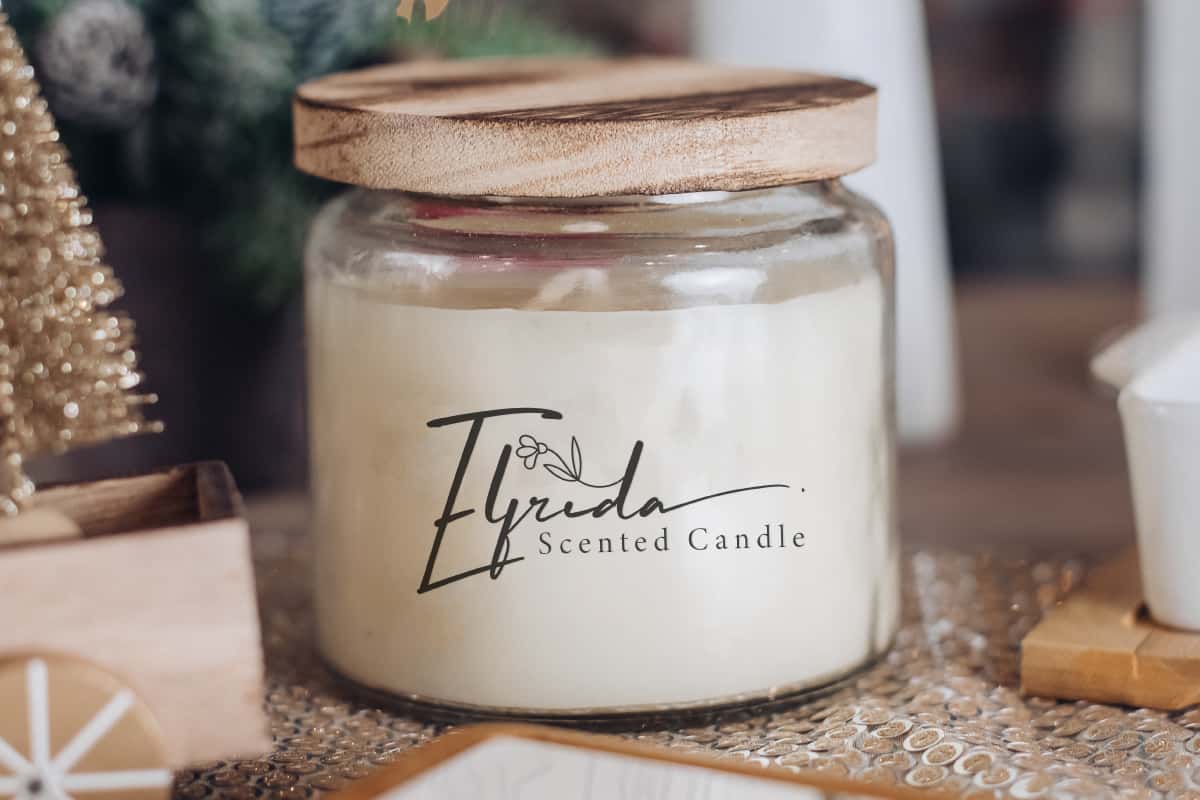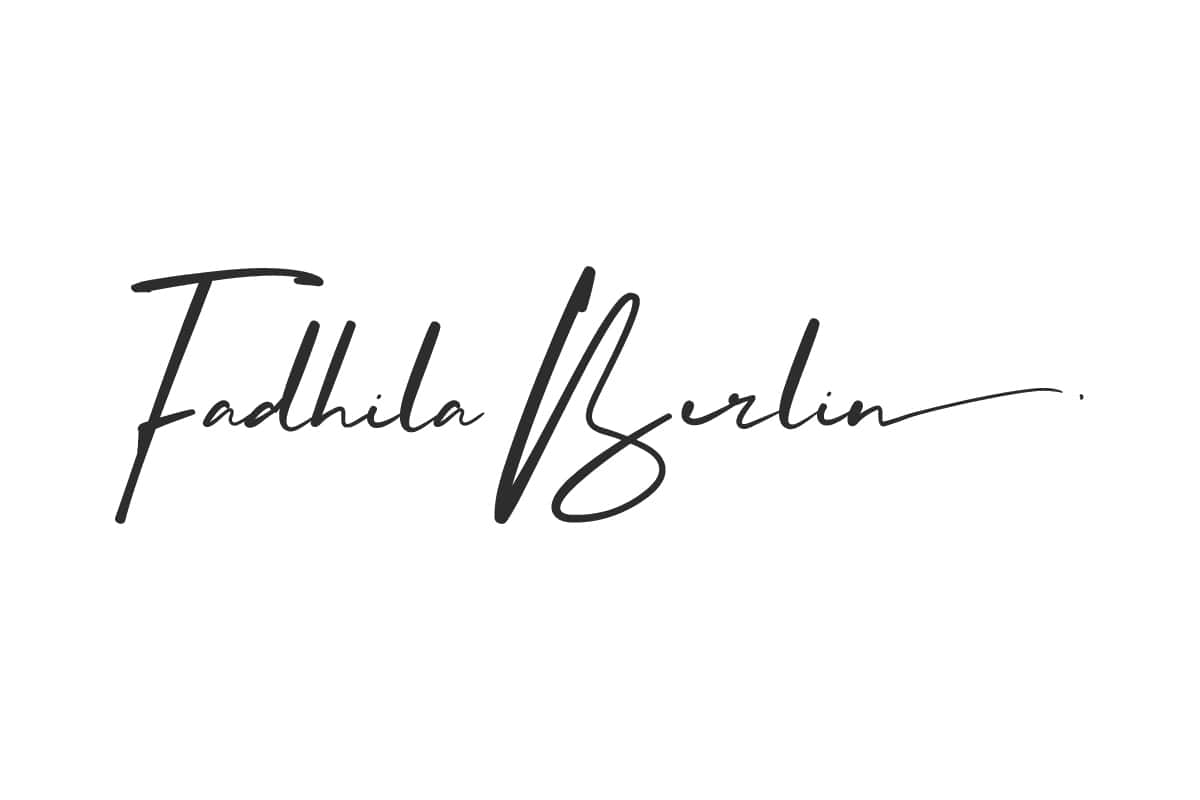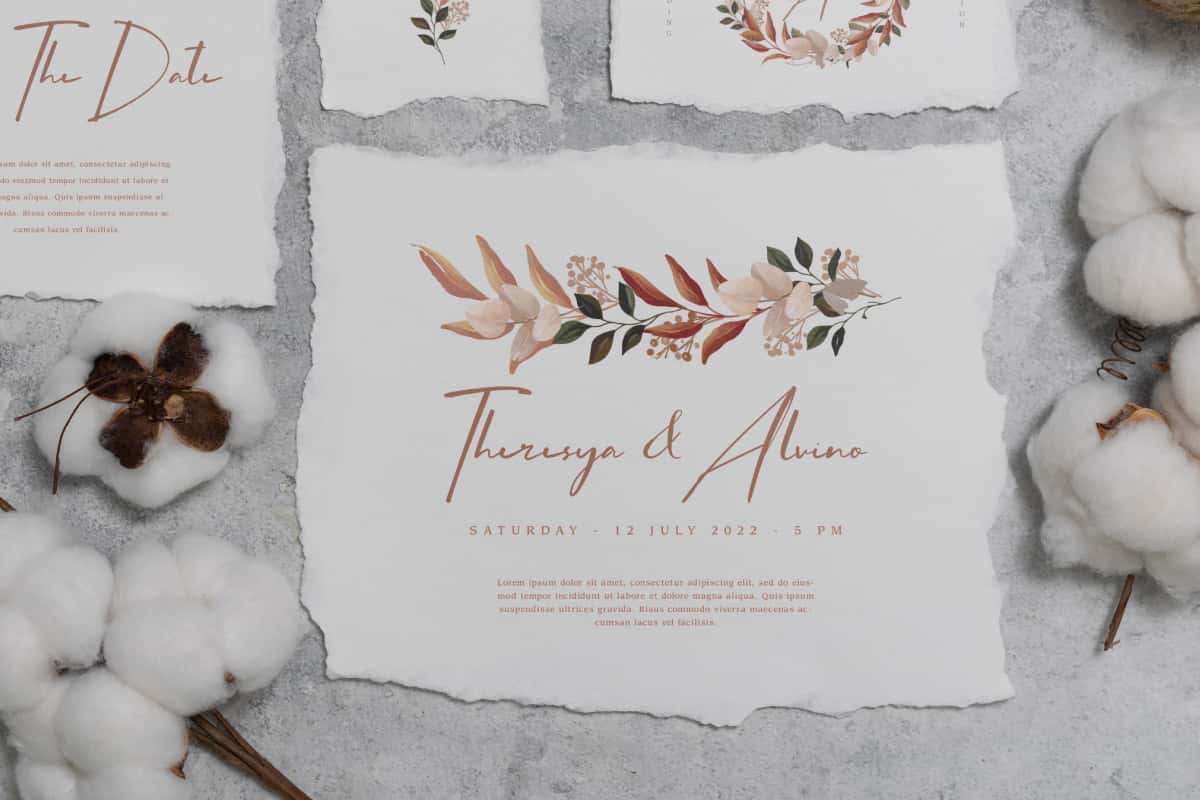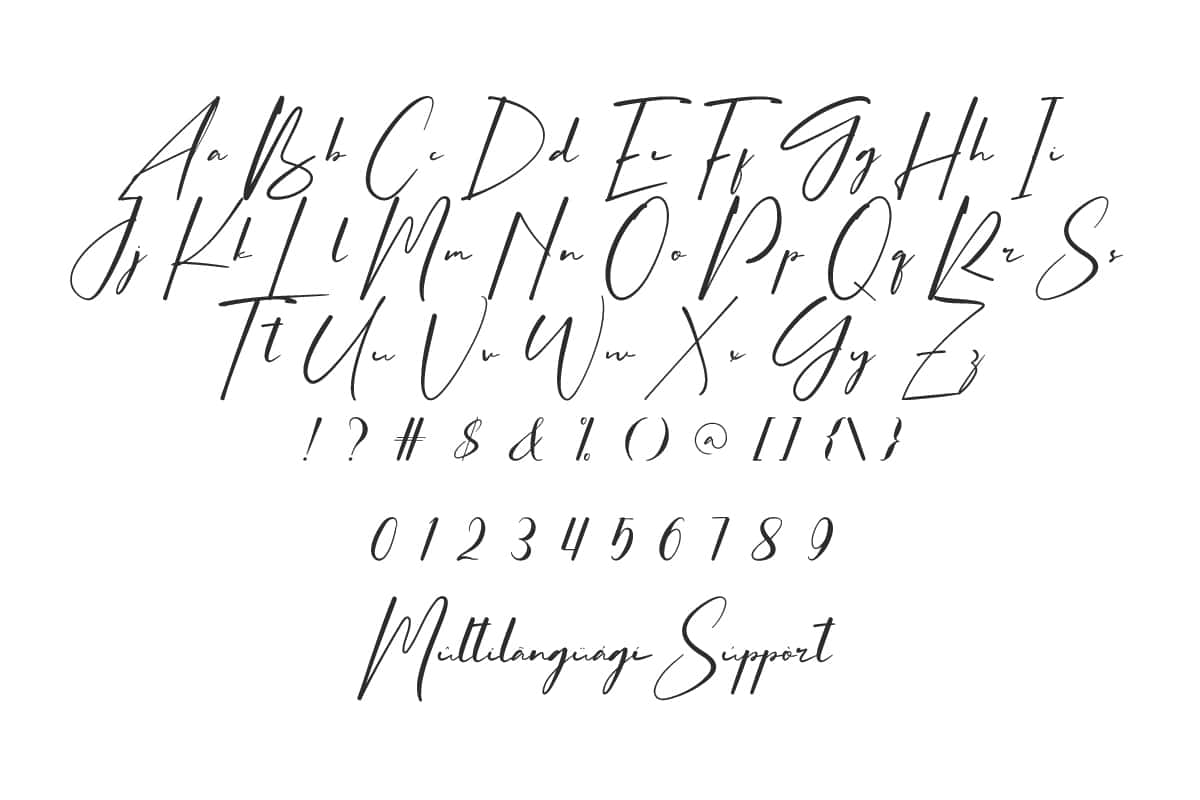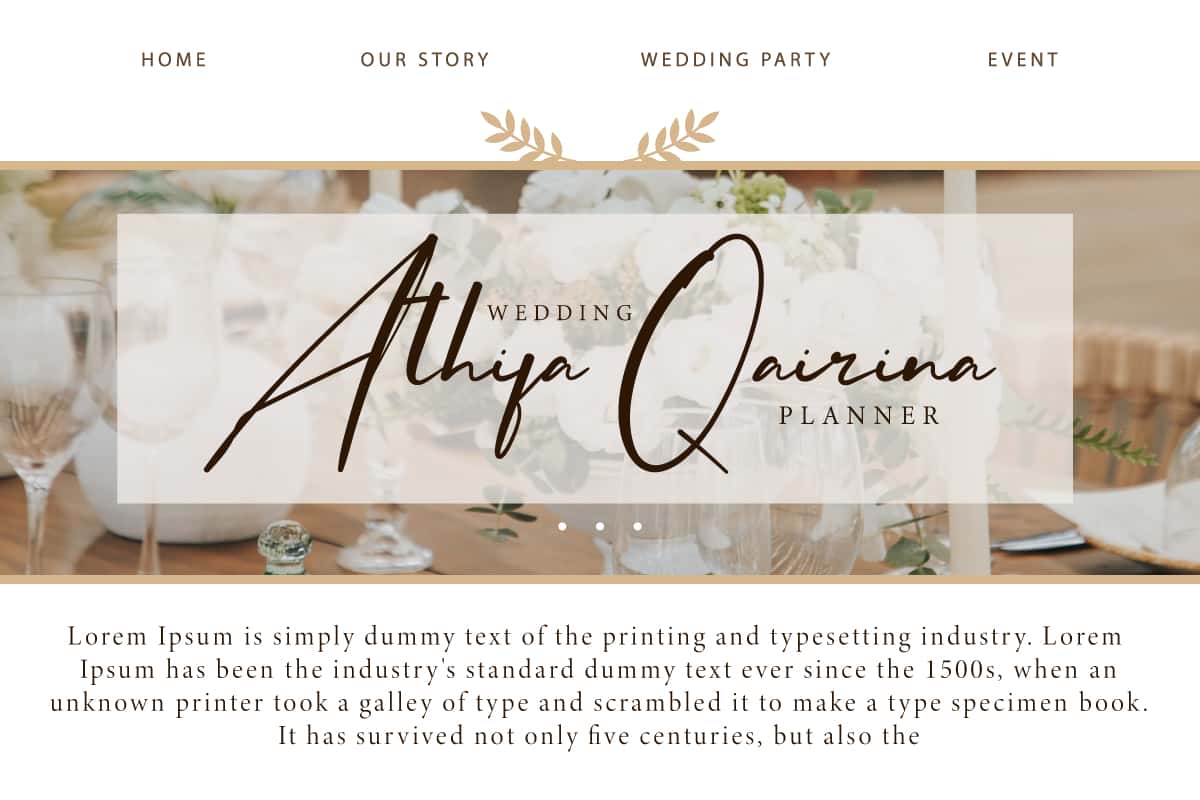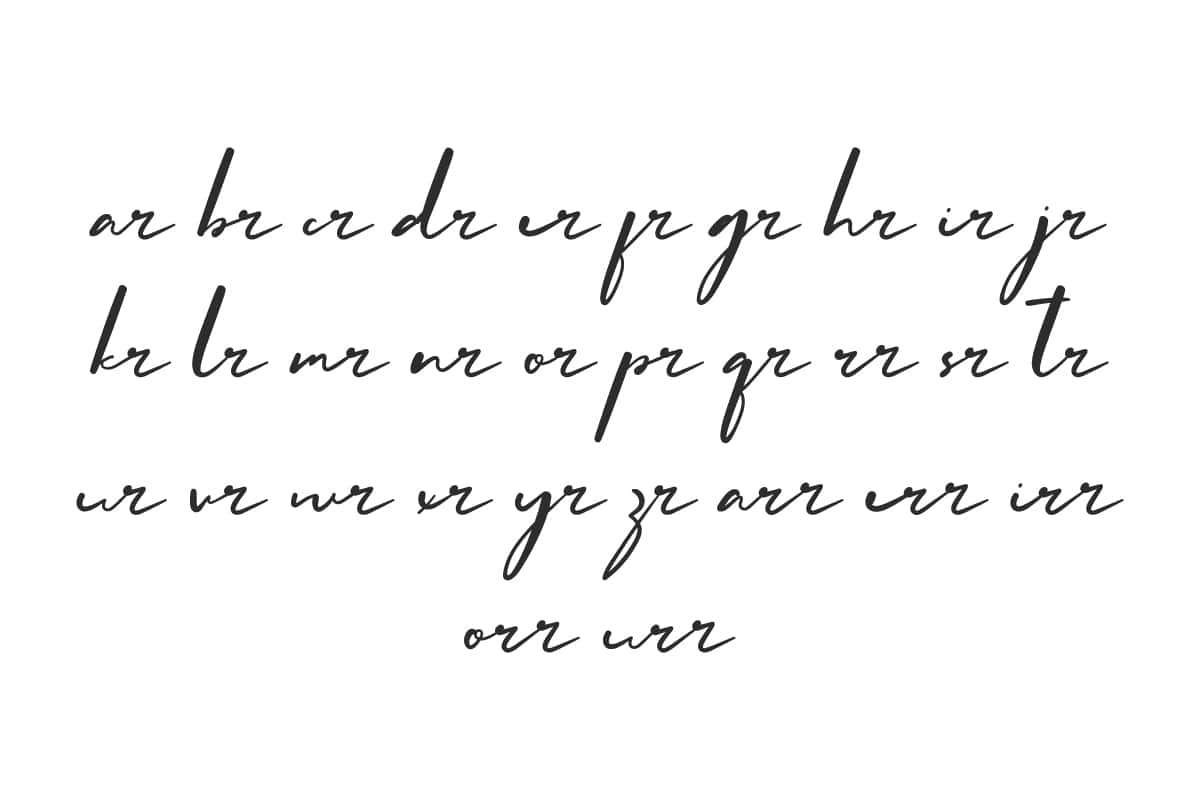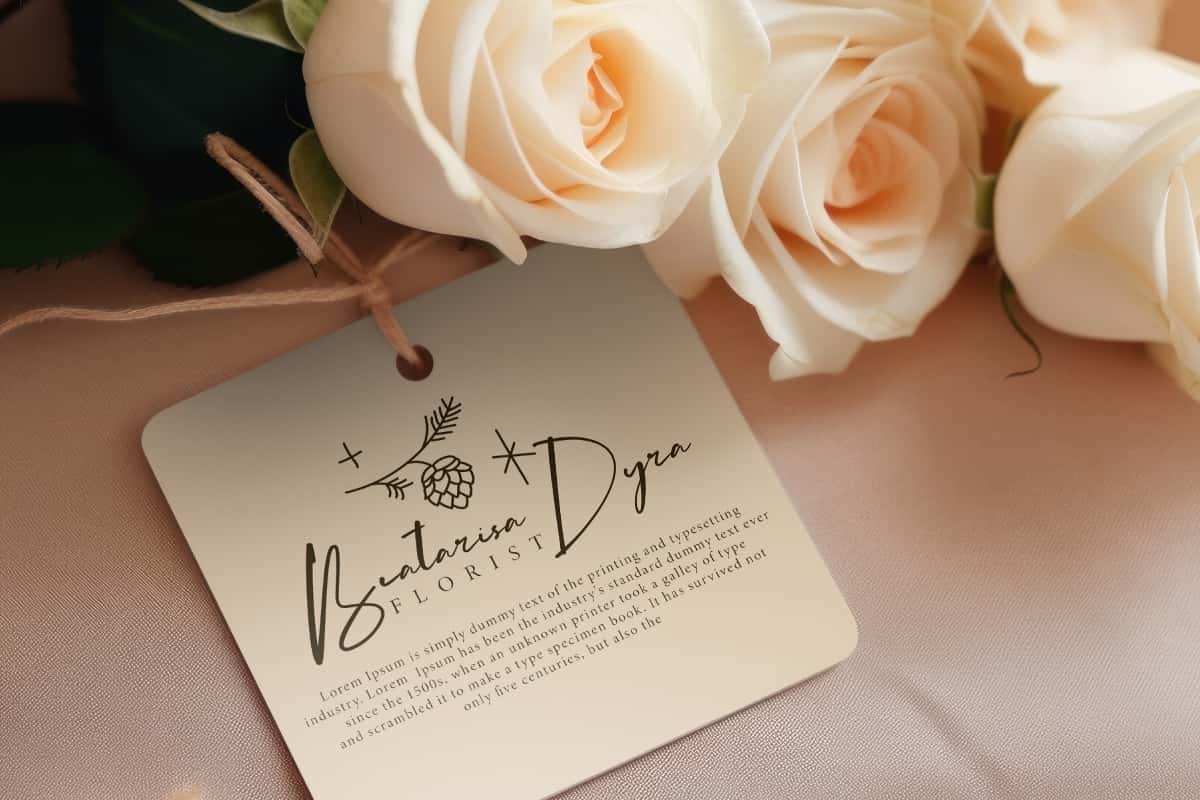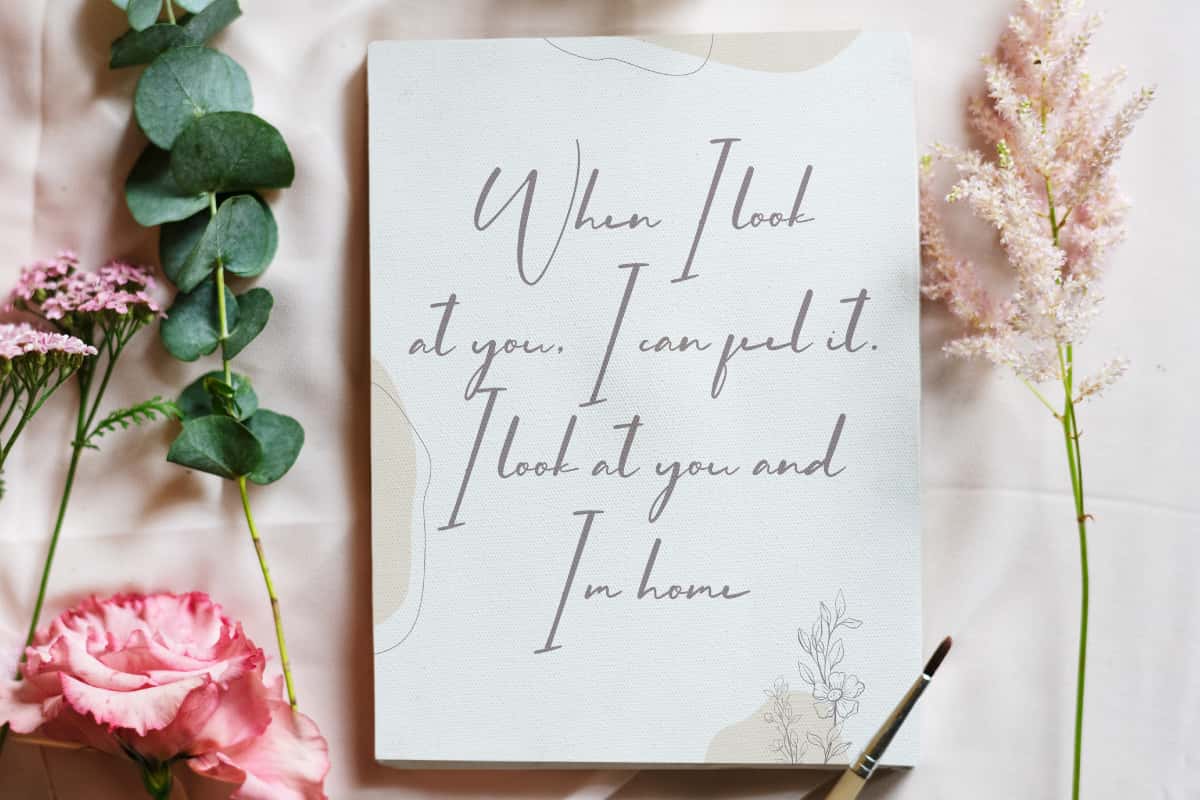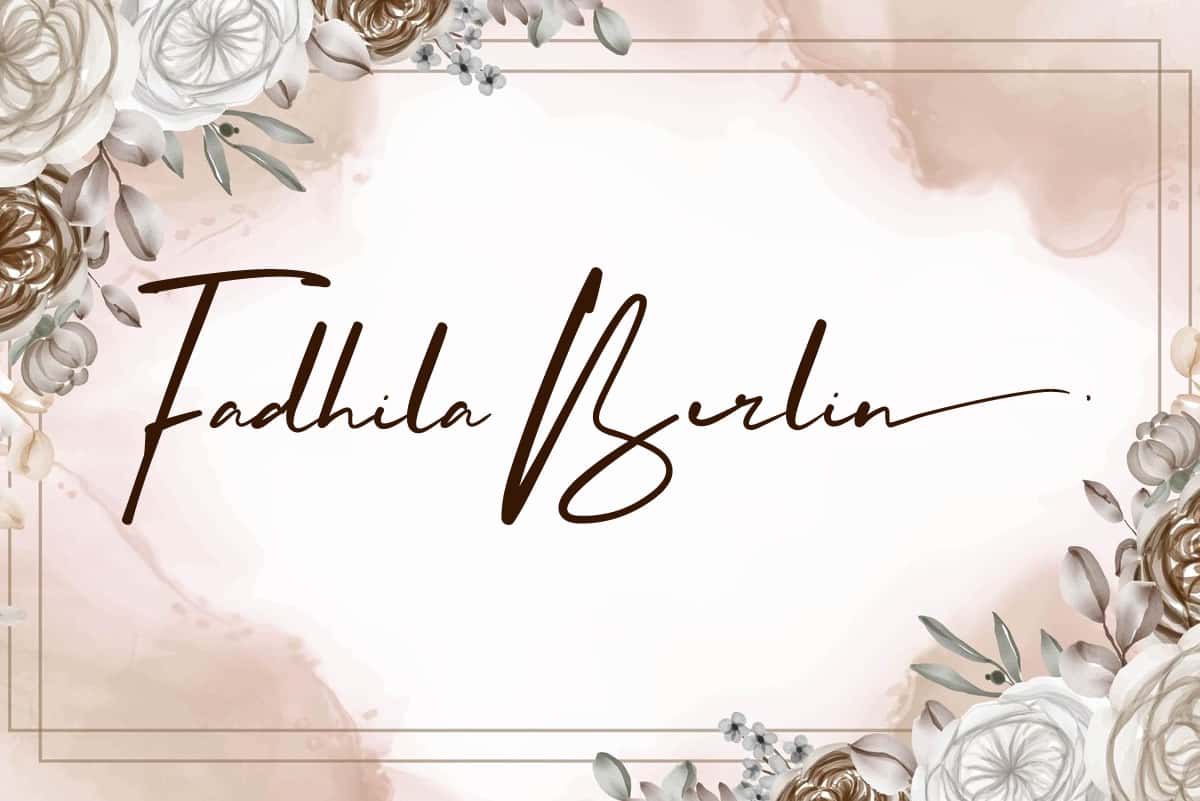
Fadhila Berlin Font is a gorgeous ink pen signature font with strong appeal, plus Ligature and Alternate make this font look absolutely perfect.
Fadhila Berlin Font is an elegant and modern classic signature font, with soft curves that make it look very beautiful. Coupled with Ligature and Alternate which can be combined perfectly. This font is suitable for blogs, card designs, headers, headline, invitations, label, logo, product packaging, quotes, stationery, stickers, tags, template, title, watermark, website, etc.
Fadhila Berlin Font includes a complete set of Basic Uppercase and Lowercase Characters, Numbers, Punctuation, Symbols, Ligature, and Alternate. With quick dry strokes this font has been carefully designed to re-create natural signature text. Perfect for advertising, boutique, event organizer, fashion, florist, hotel, printing, publishing, spa salon, wedding and more.